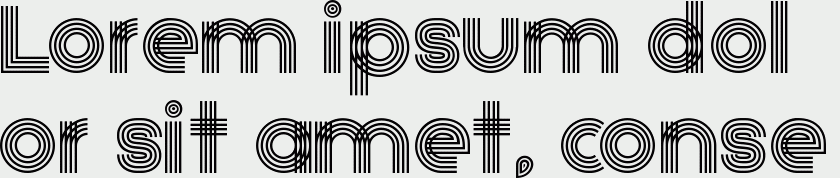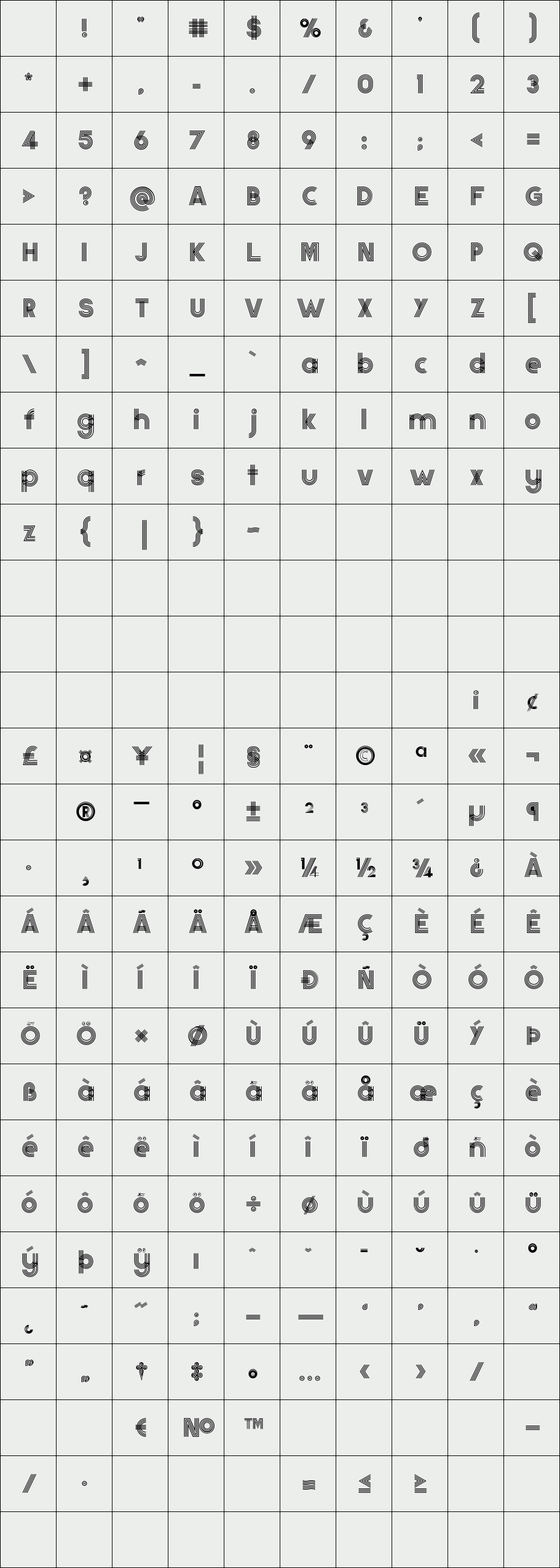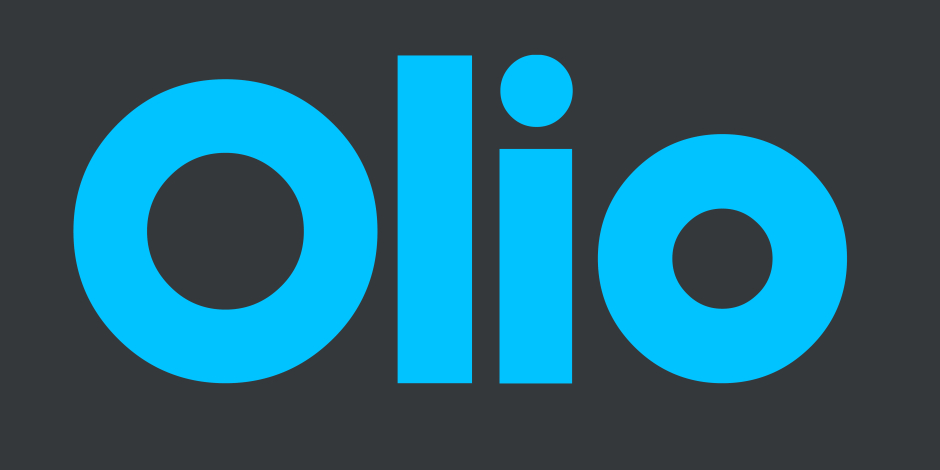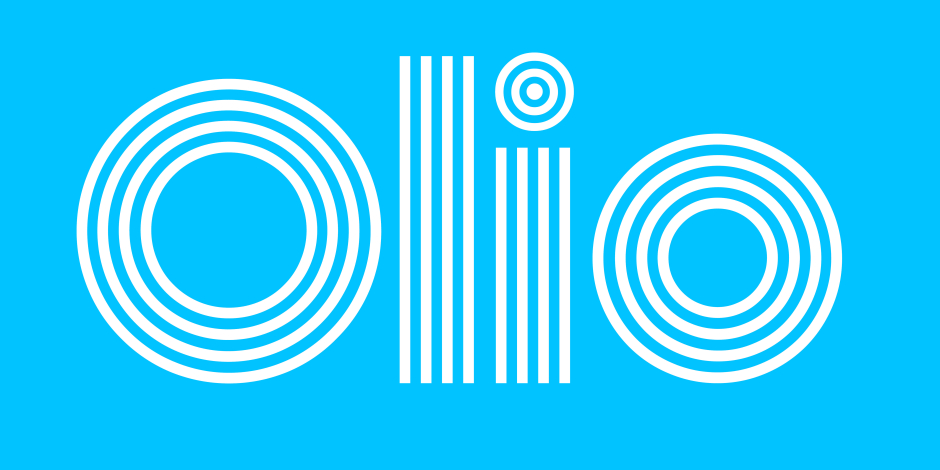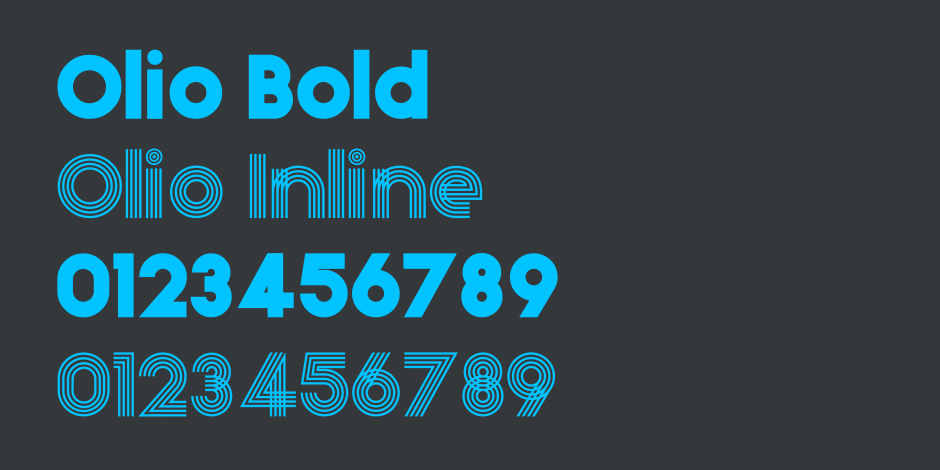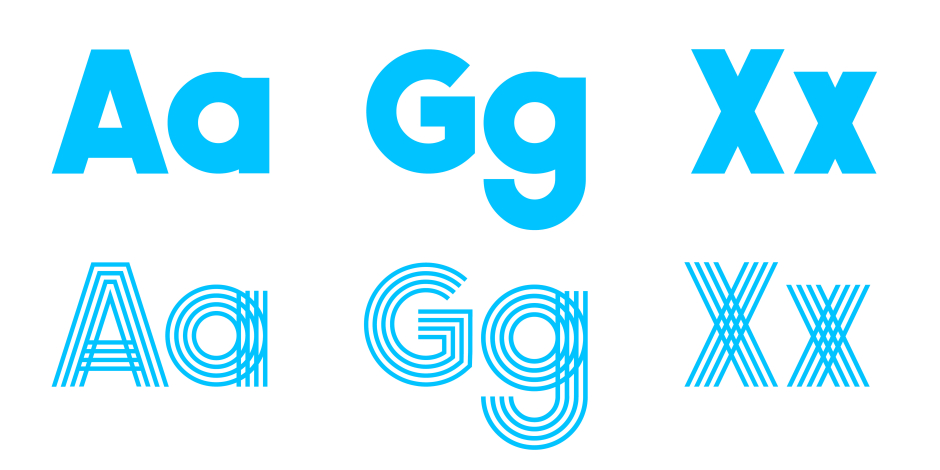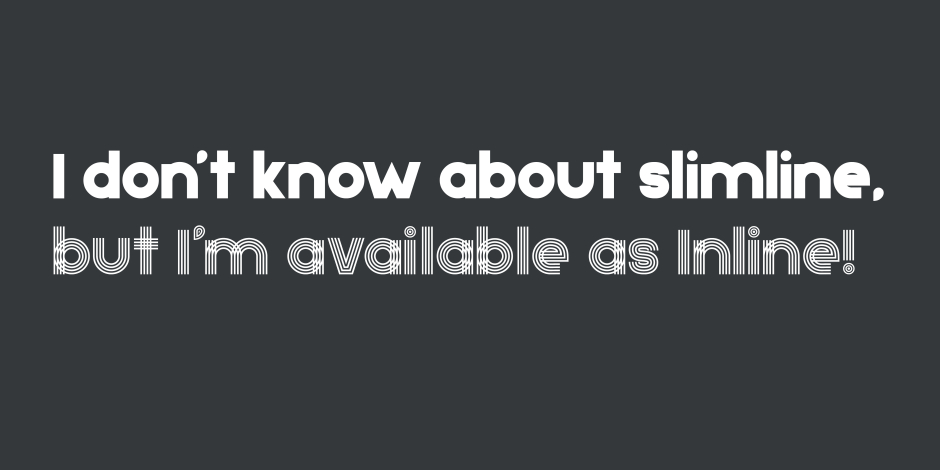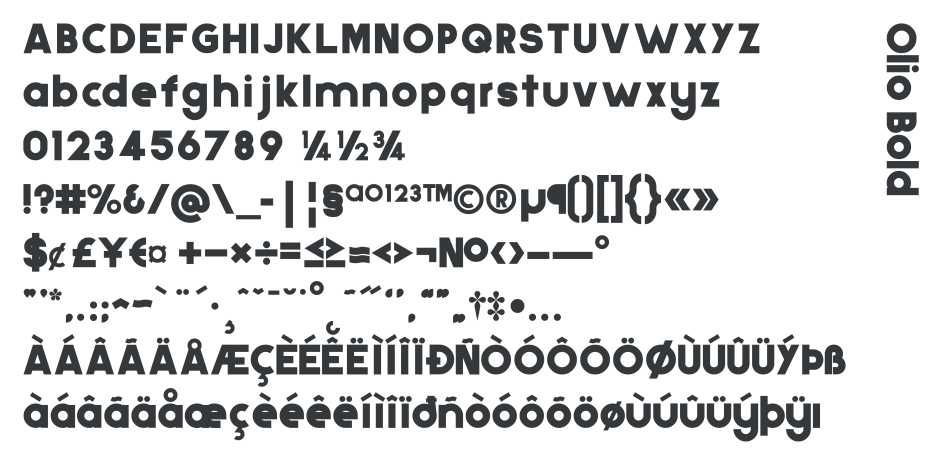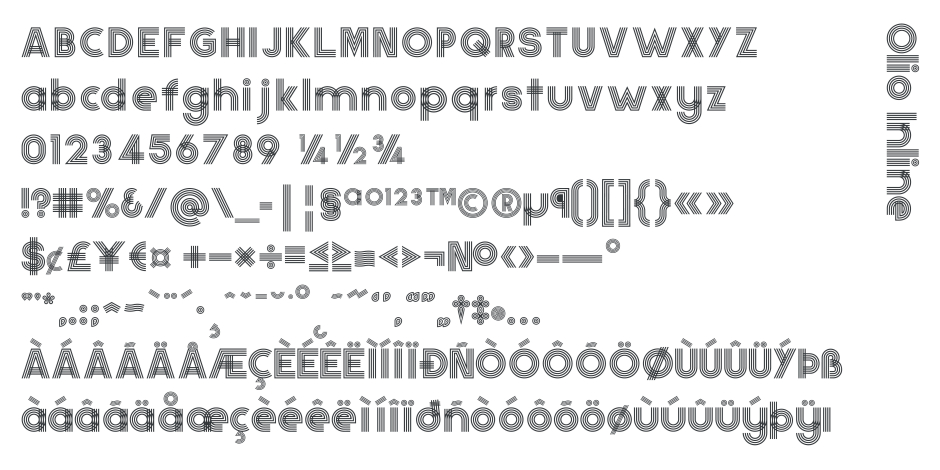
Olio
/ Olio Inline
Olio is a chunky geometric sans serif typeface. The bold version takes inspiration from classic geometric fonts like Futura and works well when creating clean, balanced typography. The inline version is the same font with a stylish and decorative stripe effect to each character.
Both versions are designed in reference to great (timeless) graphic design from the past, they have a contemporary finish making them suitable for any design purpose or application.